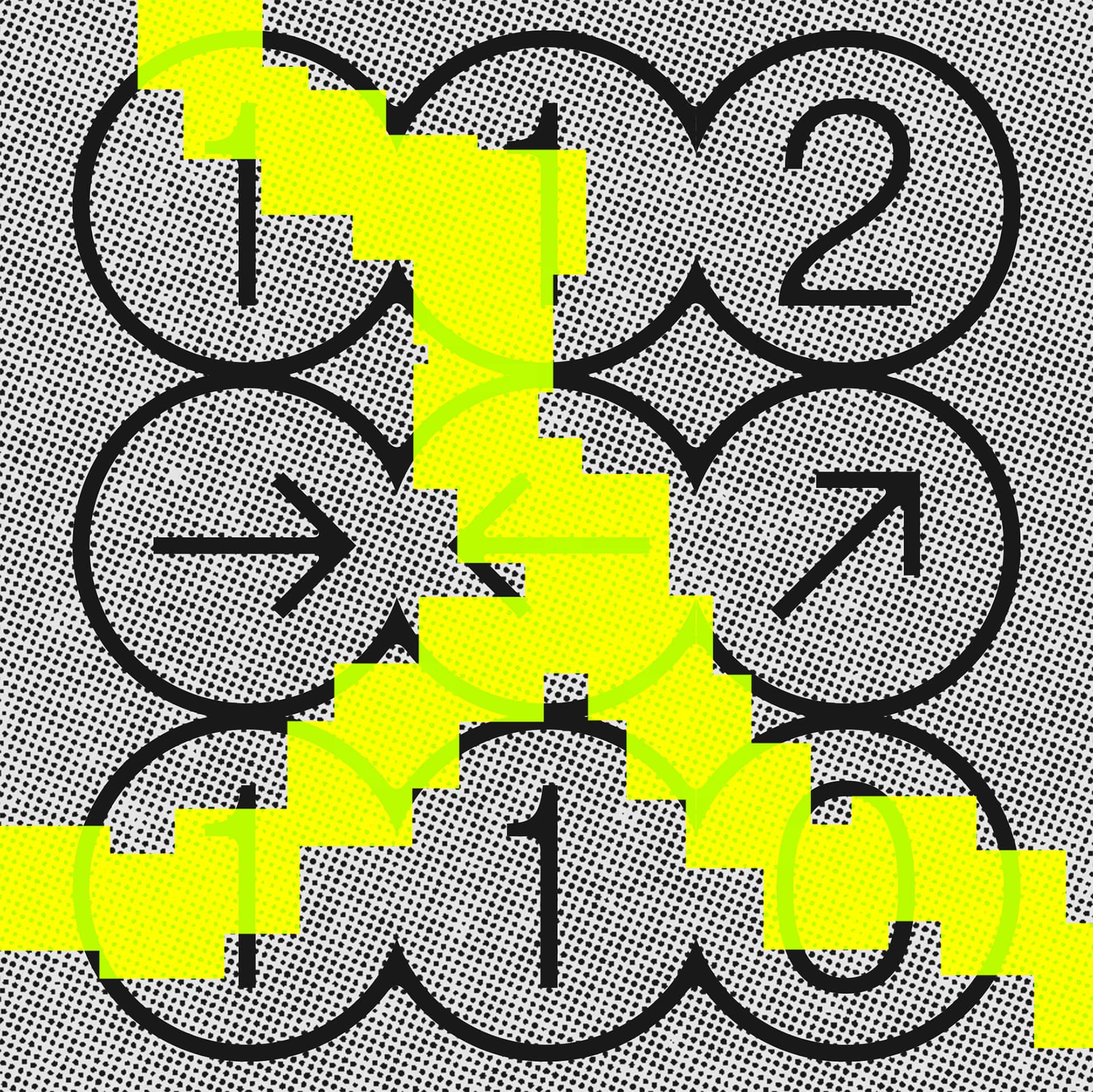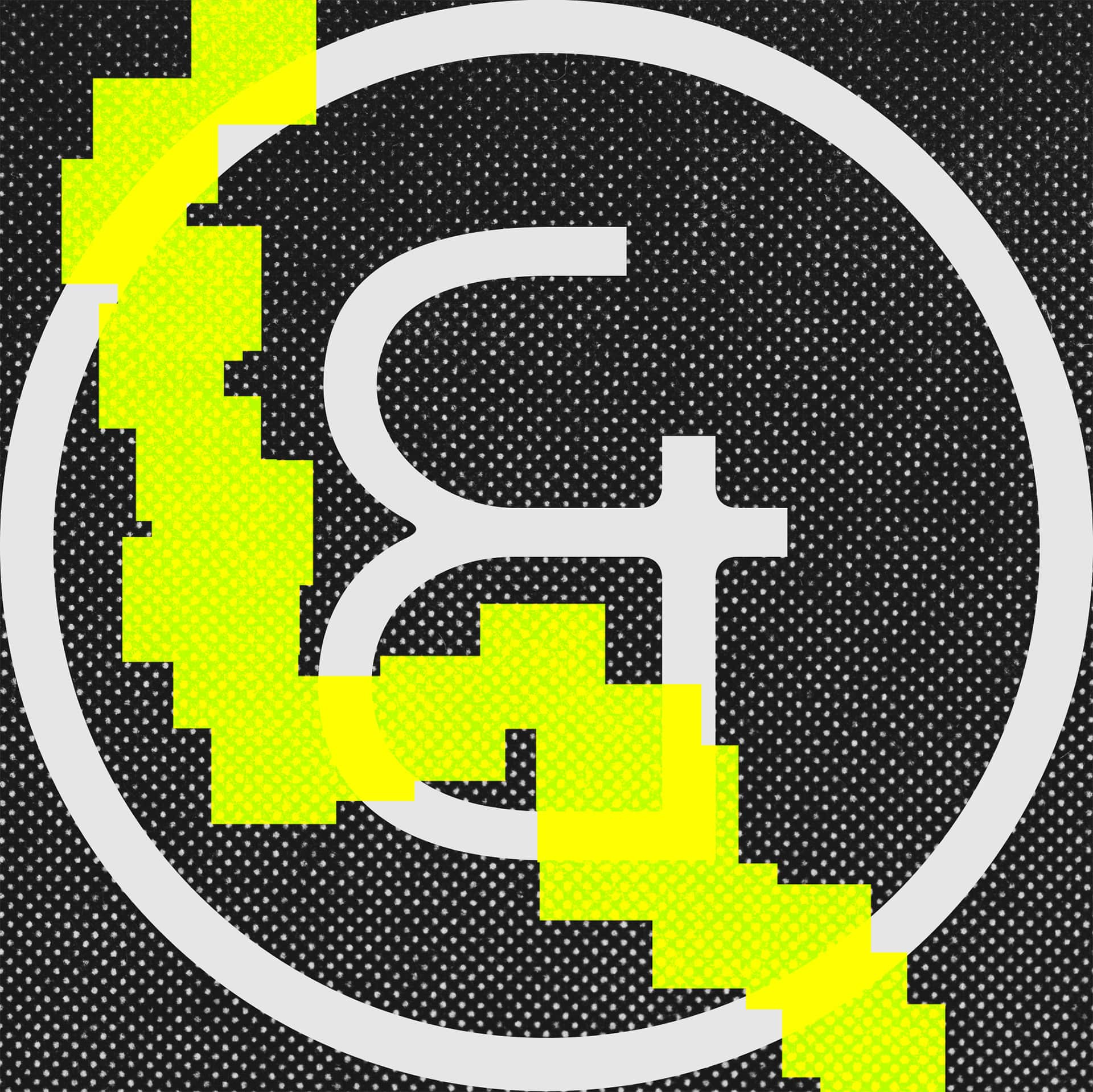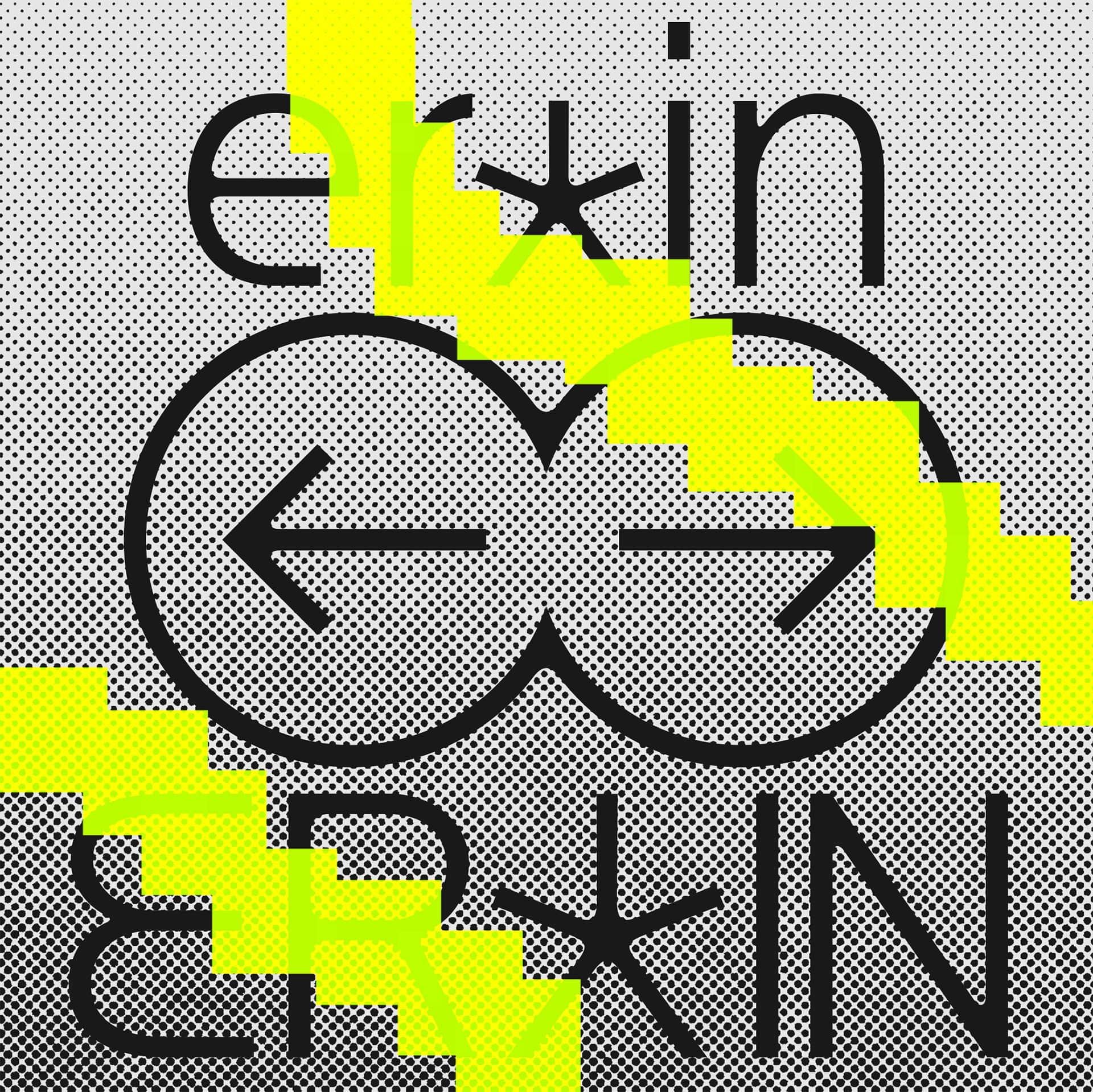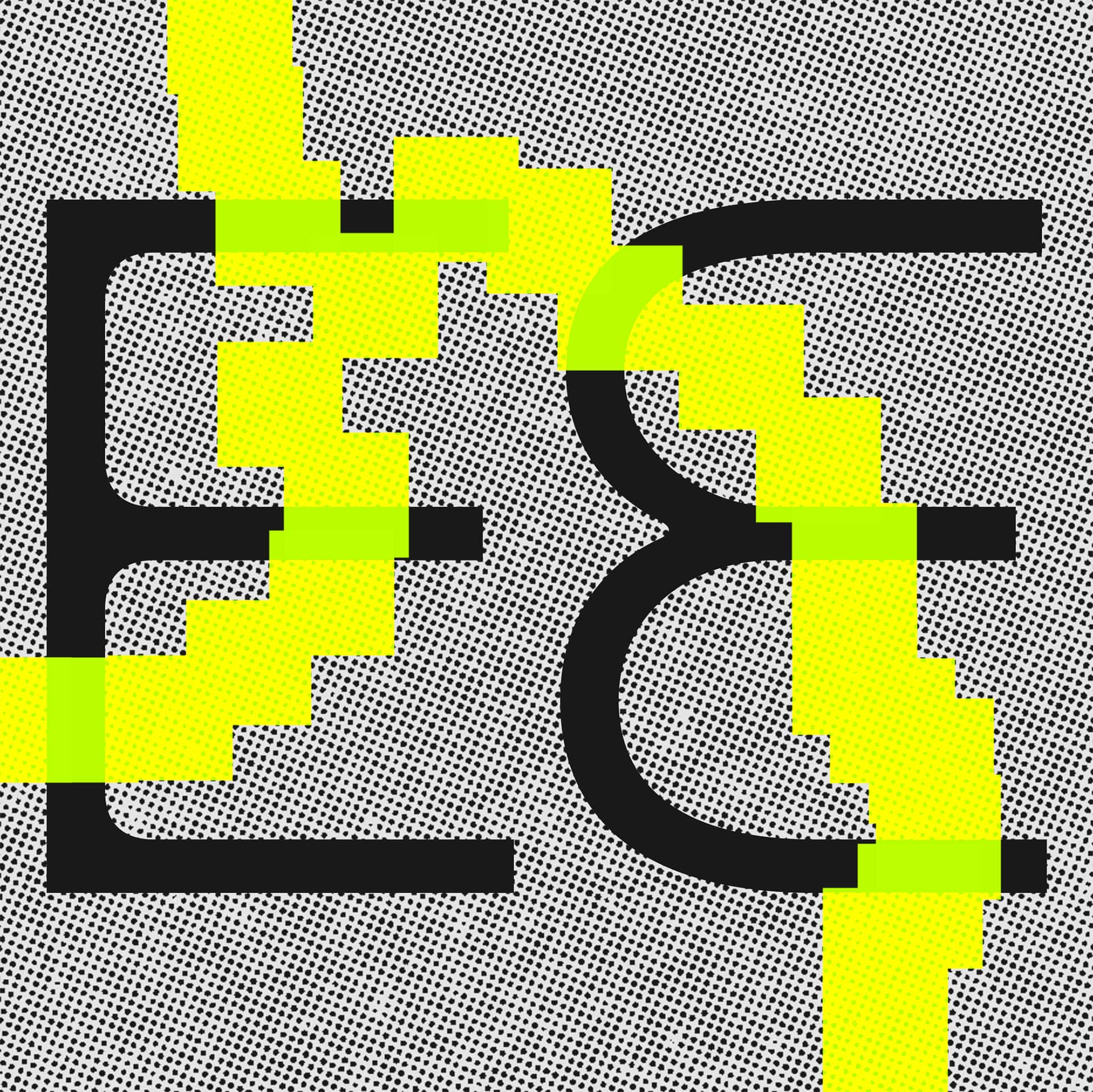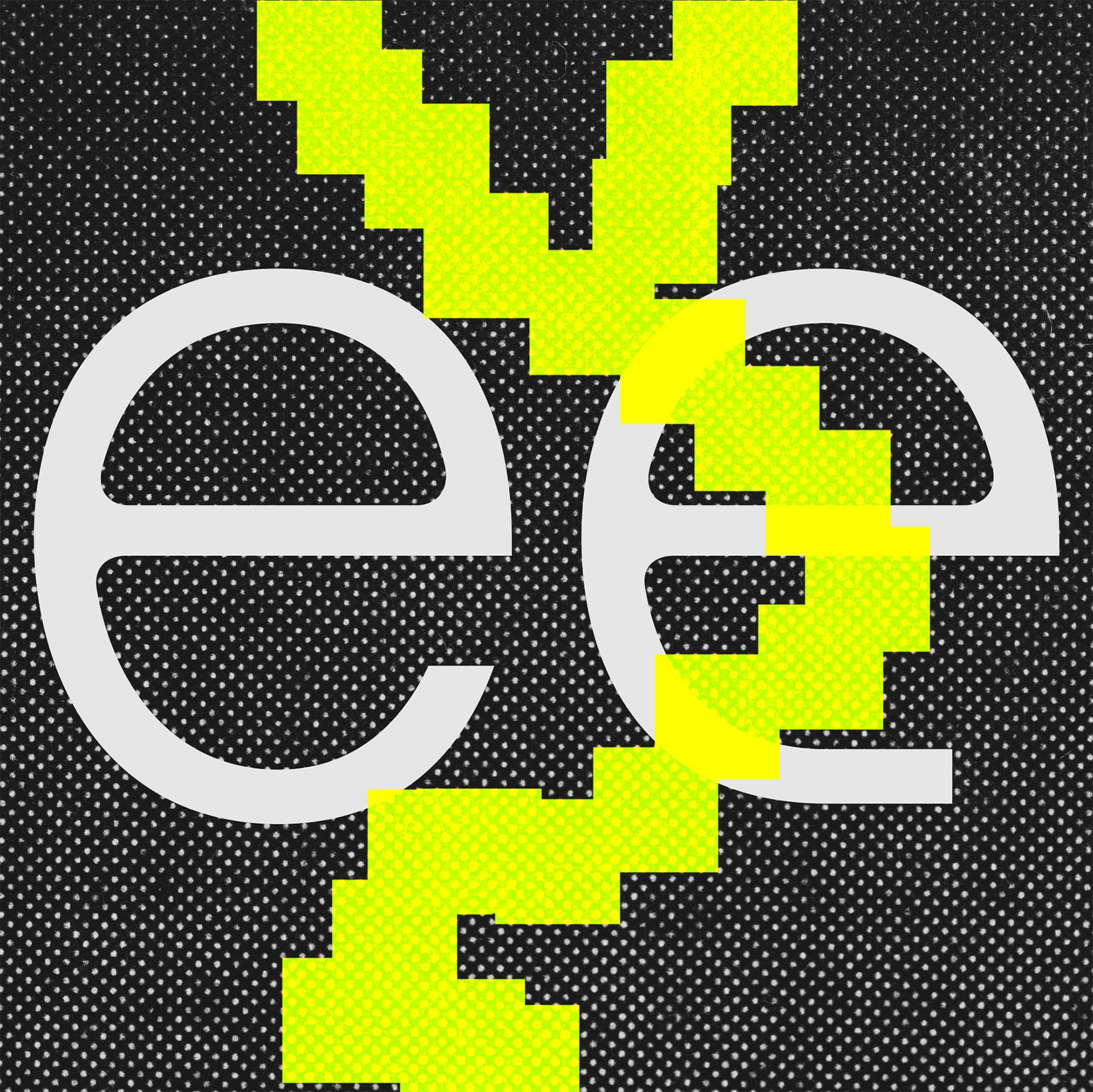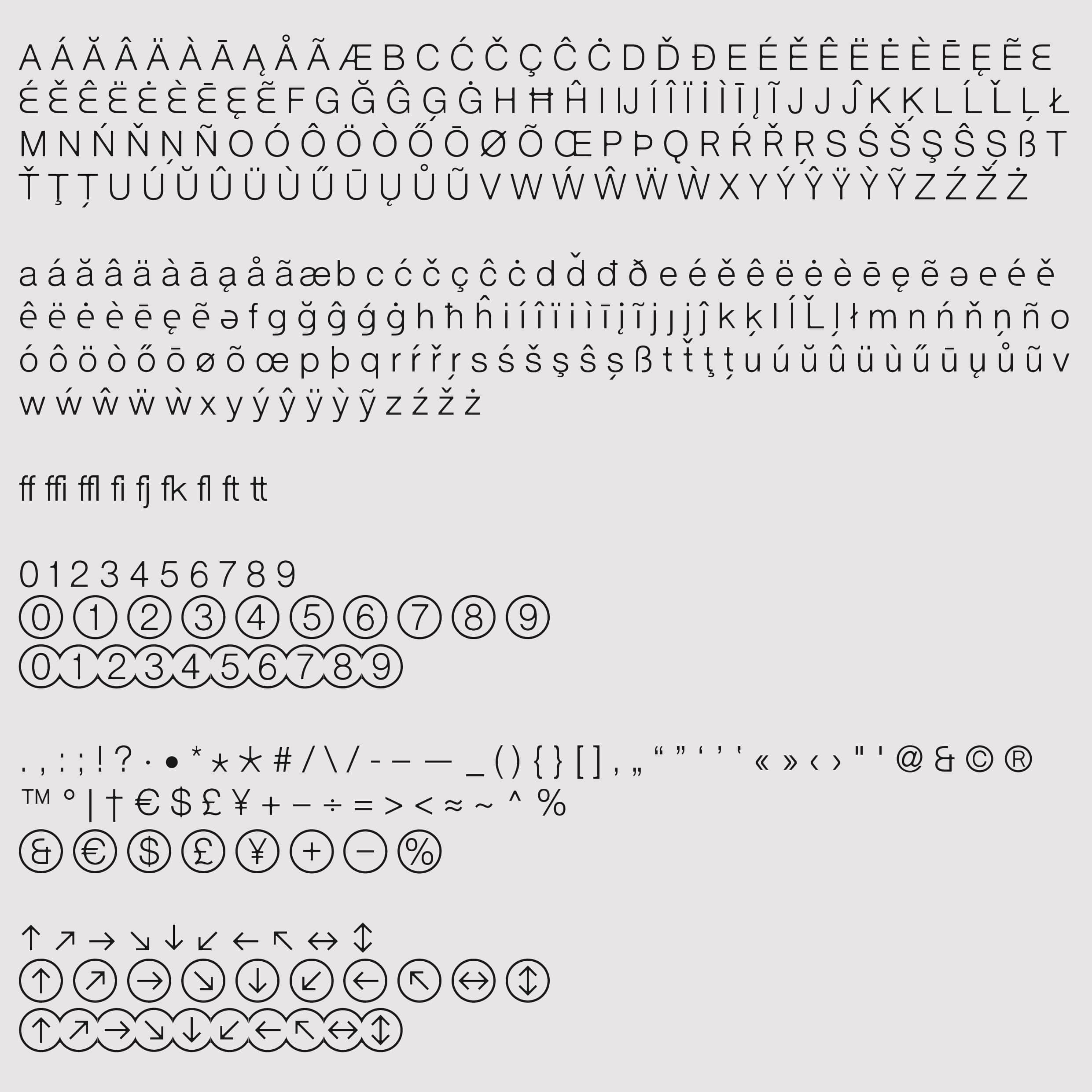
Inkbleed Light Font
Inkbleed Light is an experimental display font that brings geometric clarity into tension with controlled disruption. Inspired by the logic of grotesque sans serifs, it translates ink bleed into a graphic system of softened edges, circular alternates, and connective ligatures. Numerals, arrows, and symbols merge into continuous typographic forms, while a repositioned baseline asterisk challenges default hierarchies. The result is a bold font built for strong identities and visual friction. Inkbleed Light will be featured in the Yearbook of Type 2026.
• Lowercase
• Diacritics
• Ligatures
• Alternates
• Numerals (3 sets)
• Symbols
• Currency
• Mathematics
• Arrows